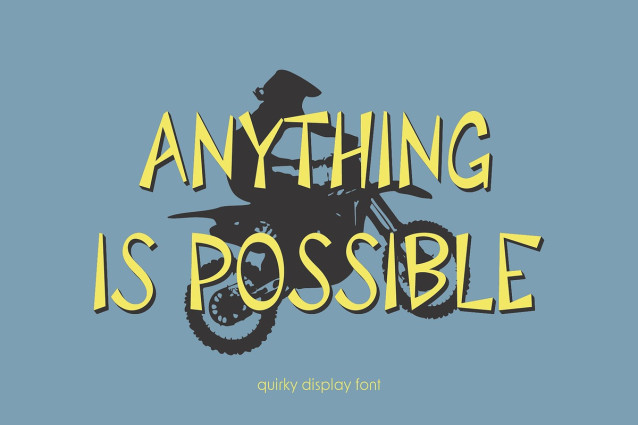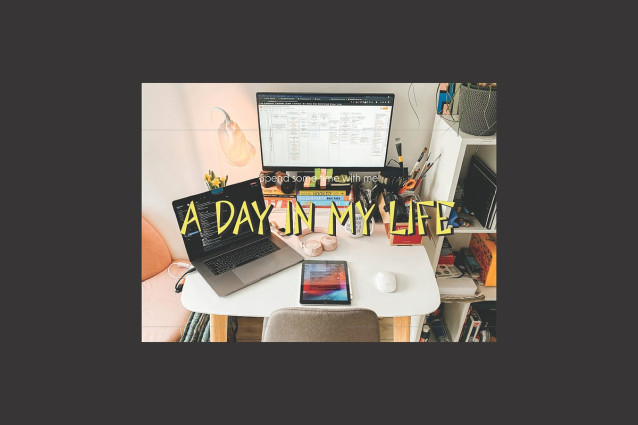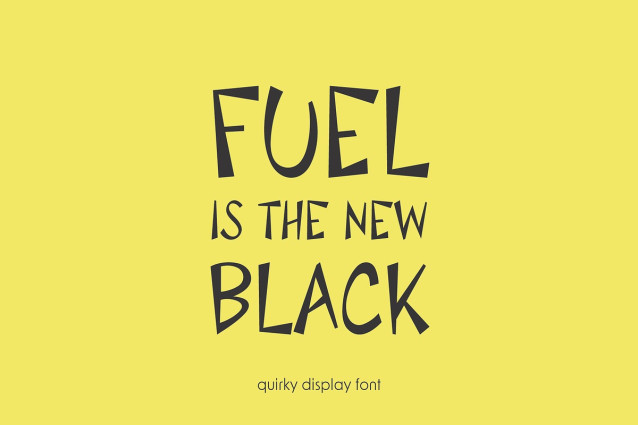
PGR Fuel Font
PGR Fuel Font a high-energy street font inspired by the raw power of punk and graffiti. Handcrafted with unique, bold characters, Fuel is perfect for adding an edgy, rebellious vibe to your designs.